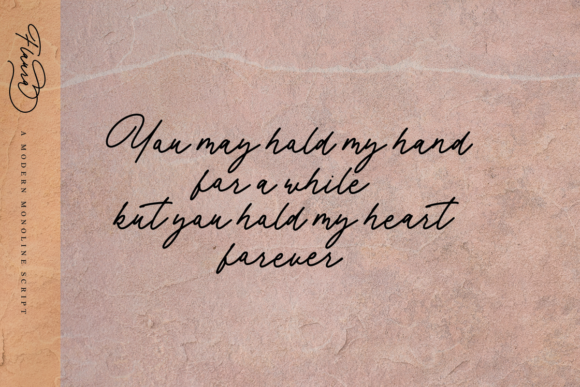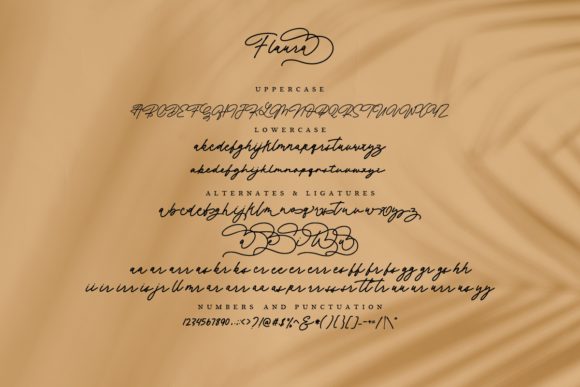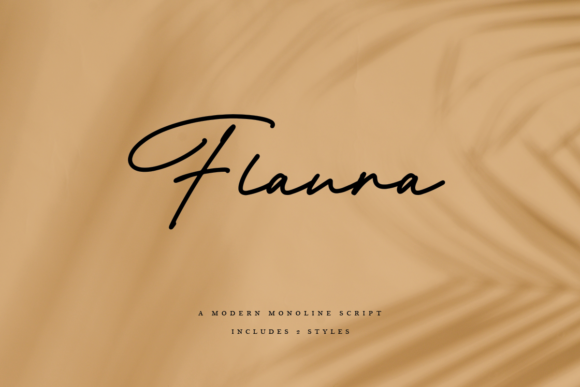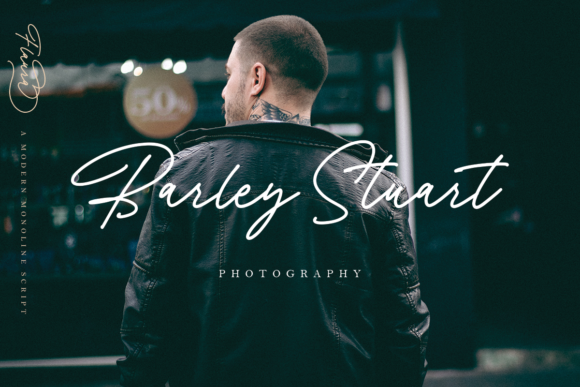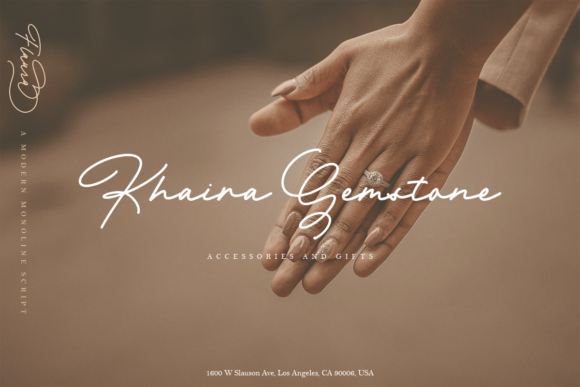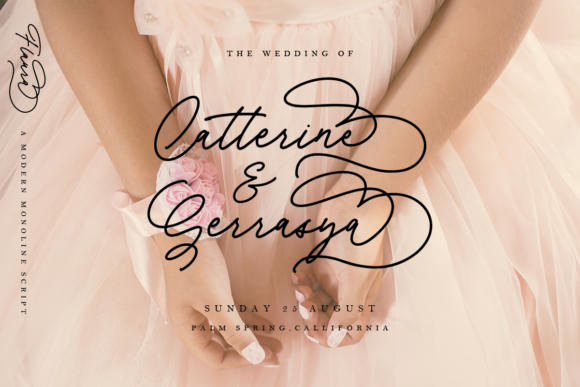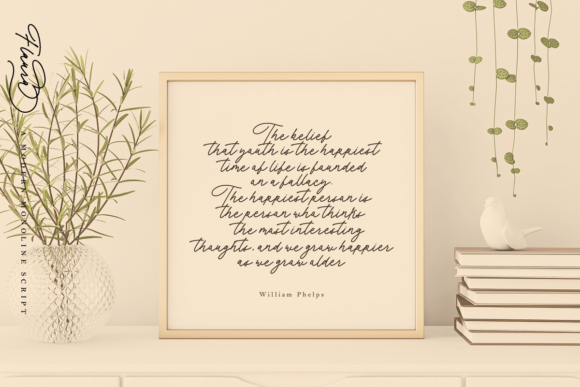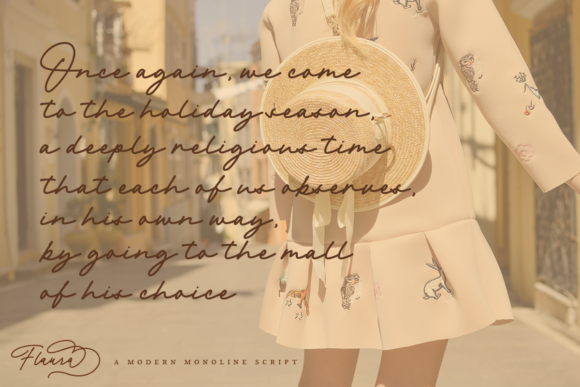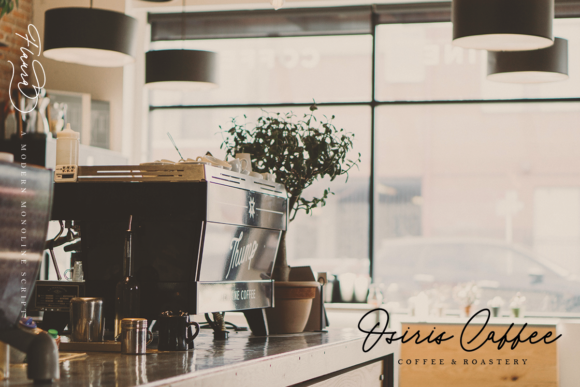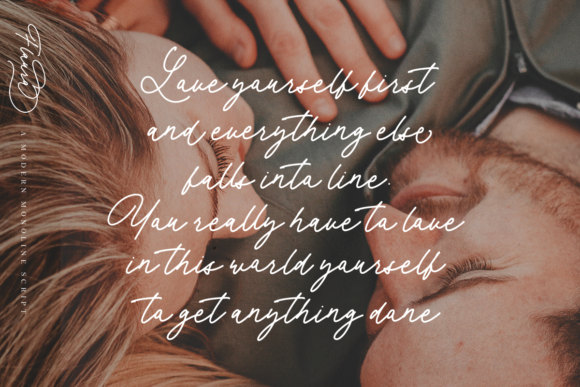
Flaura Font
About Flaura Font
Flaura is a script font featuring feminine handwritten style. Use it for any design project that requires a personalized appearance!